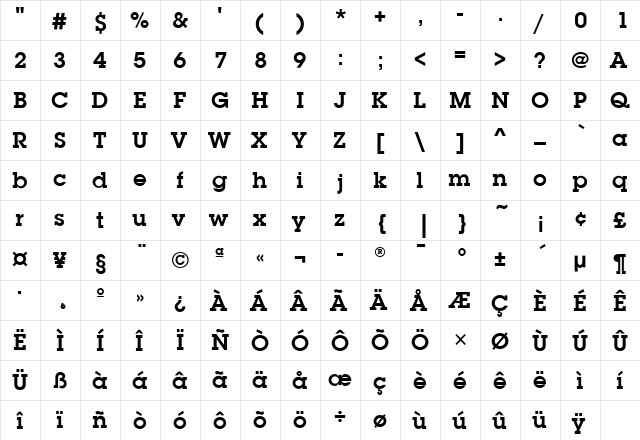
LubalinGraphITC Demi Font Preview
LubalinGraphITC Demi
Design Context for LubalinGraphITC Typeface
LubalinGraphITC is a composed and adaptable typeface that performs quietly and consistently across a wide range of design contexts.